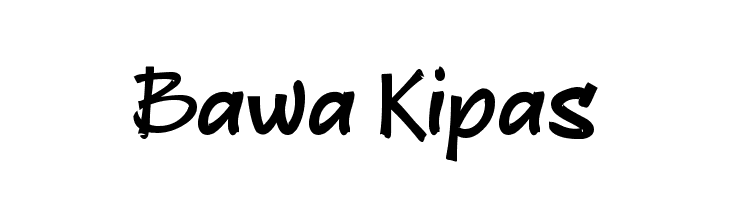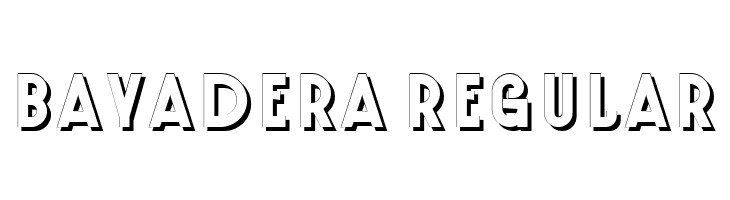
A casual, elegant handwritten font with fluid, natural strokes.
A sleek, modern font with elongated, thin strokes and a minimalist aesthetic.
A modern, minimalist font with elongated, thin strokes and a sophisticated style.
A sleek, italic font with thin, elongated characters and a modern, elegant style.
A sleek, modern italic font with thin, elongated characters and a minimalist style.
A flowing, handwritten script font with a casual elegance.
A decorative and bold font with angular details and star-like embellishments.
A classic serif font with elegant thin strokes and subtle curves.
A classic serif font with elegant strokes and refined serifs.
A bold and expressive script font with dynamic flow and smooth curves.
A playful, handwritten script font with dynamic strokes and expressive characters.
A bold, cursive font with interconnected letters and elegant swashes.
A bold, elegant script font with flowing, cursive letterforms.
A playful, bold font with a hand-drawn, whimsical style.
A bold, brush script font with dynamic strokes and artistic flair.
A lively and elegant script font with fluid, cursive strokes and a handwritten appearance.
A graceful script font with fluid, connected strokes and a sophisticated style.
A fluid and elegant cursive font with interconnected strokes and a natural handwriting style.
A graceful, cursive font with interconnected letters and a natural handwriting style.
A fluid, cursive font with a handwritten style and interconnected letters.
Bold, energetic handwritten script with fluid, connected strokes.
A bold, hand-drawn font with intricate patterns and a whimsical style.
A bold, italic, and futuristic font with angular, geometric characters.
A bold, futuristic font with sharp angles and a geometric design.
A refined, cursive script font with elegant, flowing strokes.
A bold, textured font with a brush stroke appearance, perfect for artistic projects.
A whimsical, artistic font with flowing, cursive-like strokes and playful loops.
A playful and elegant script font with flowing, cursive letterforms.
A bold, playful font with thick, rounded letterforms and unique cutouts.
A modern, 3D-effect font with bold outlines and geometric shapes.